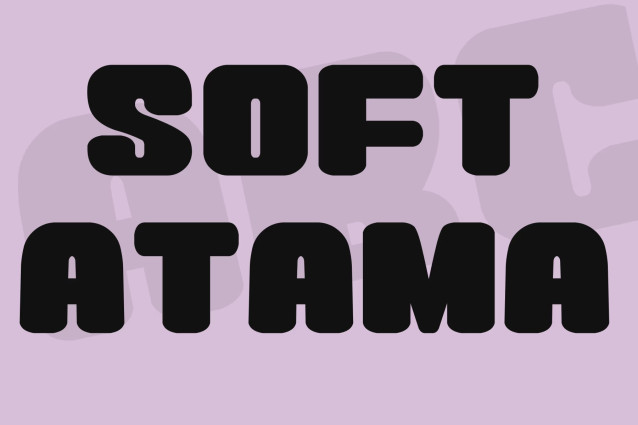
Soft Atama Font, perfectly fit for branding, logo, wedding things, greeting cards, fashion, lookbook, marketing promotion, anytime you want to look fancy elegant but still casual.
Soft Atama Font